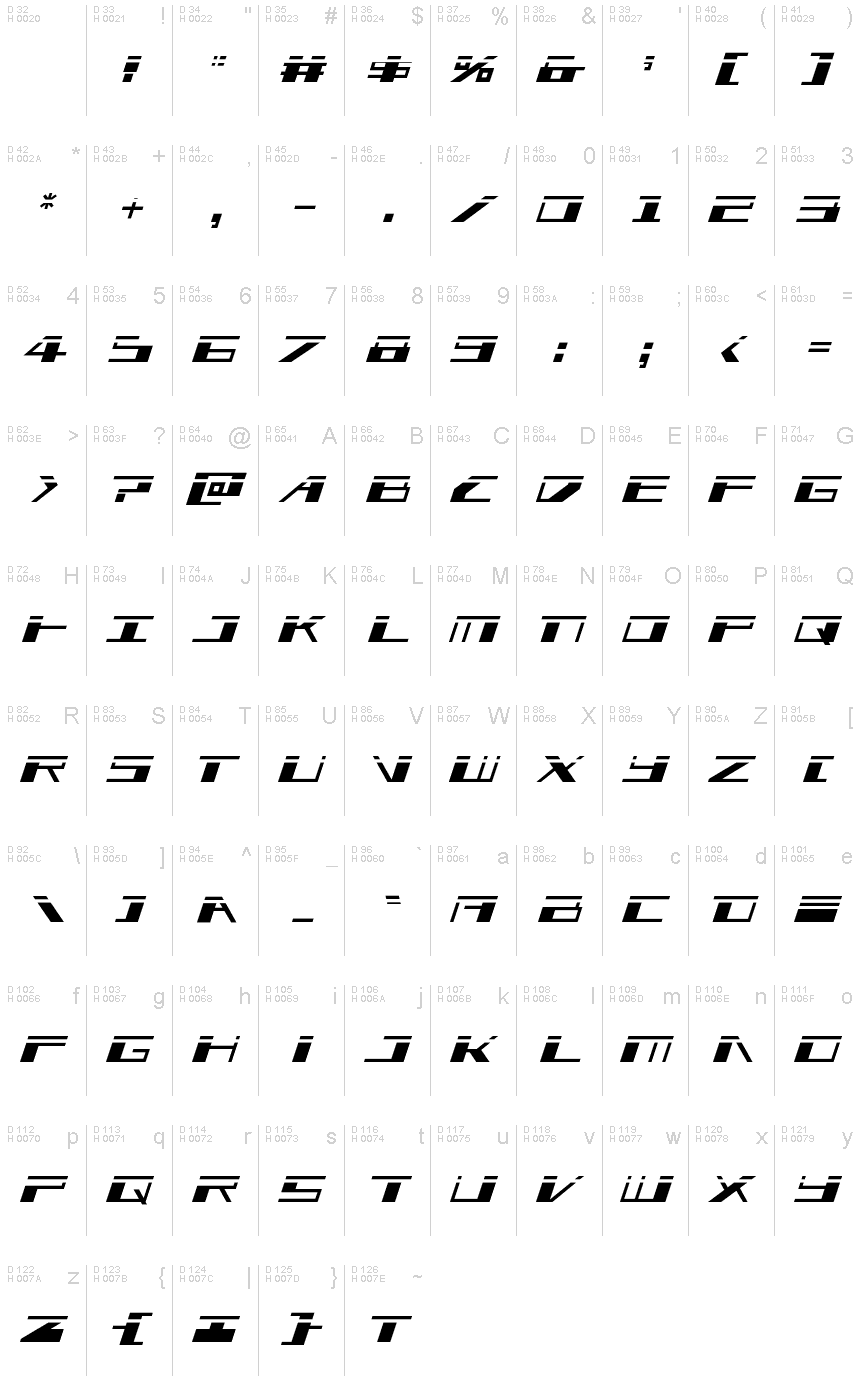
3AGLE Laser Italic
Dive into the digital age with 3AGLE Laser Italic, a standout font from the visionary minds at Iconian Fonts. This display typeface boasts an extra-expanded width and bold weight that commands attention. Its futuristic style not only captivates but also promises versatility across an array of creative endeavors.
Whether you're crafting a high-impact marketing campaign, designing a cutting-edge app interface, or setting the scene in a sci-fi graphic novel, 3AGLE Laser Italic is engineered to give your projects an unparalleled edge.
Embrace the power of this typeface and let your designs soar into new realms of innovation.